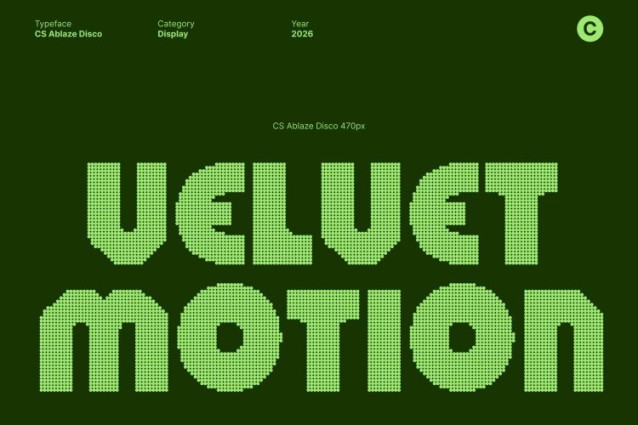
CS Ablaze Disco Font This is a bold display sans serif font built from blocky, brutalist geometry and a strong architectural foundation. Its heavy forms and solid construction create an uncompromising visual presence, inspired by industrial design and experimental typography.
Industrial Attitude Meets Disco Glamour
While rooted in brutalist and industrial aesthetics, this font introduces a vibrant disco spirit that transforms rigidity into celebration. Sharp edges and bold proportions are energized with a festive attitude, evoking flashing lights, crowded dance floors, and retro nightlife culture. The result is a striking balance between mechanical strength and glamorous expression modern, rebellious, and unapologetically bold.
Energetic Display Font for High-Impact Design
Designed to shine in large-scale display use, this font excels where visual impact matters most. Its bold weight and geometric clarity ensure strong readability while delivering an energetic, party-ready presence. Headlines, titles, and key messages feel loud, confident, and dynamic, making every design feel alive and in motion.
Perfect for Music, Posters, and Festive Branding
This font is ideal for posters, album artwork, event promotions, and bold branding that demands attention. Inspired by disco culture, retro fashion, and nightlife energy, it captures a glamorous party vibe that feels festive, expressive, and unforgettable helping your designs stand out with fearless style and vibrant personality.